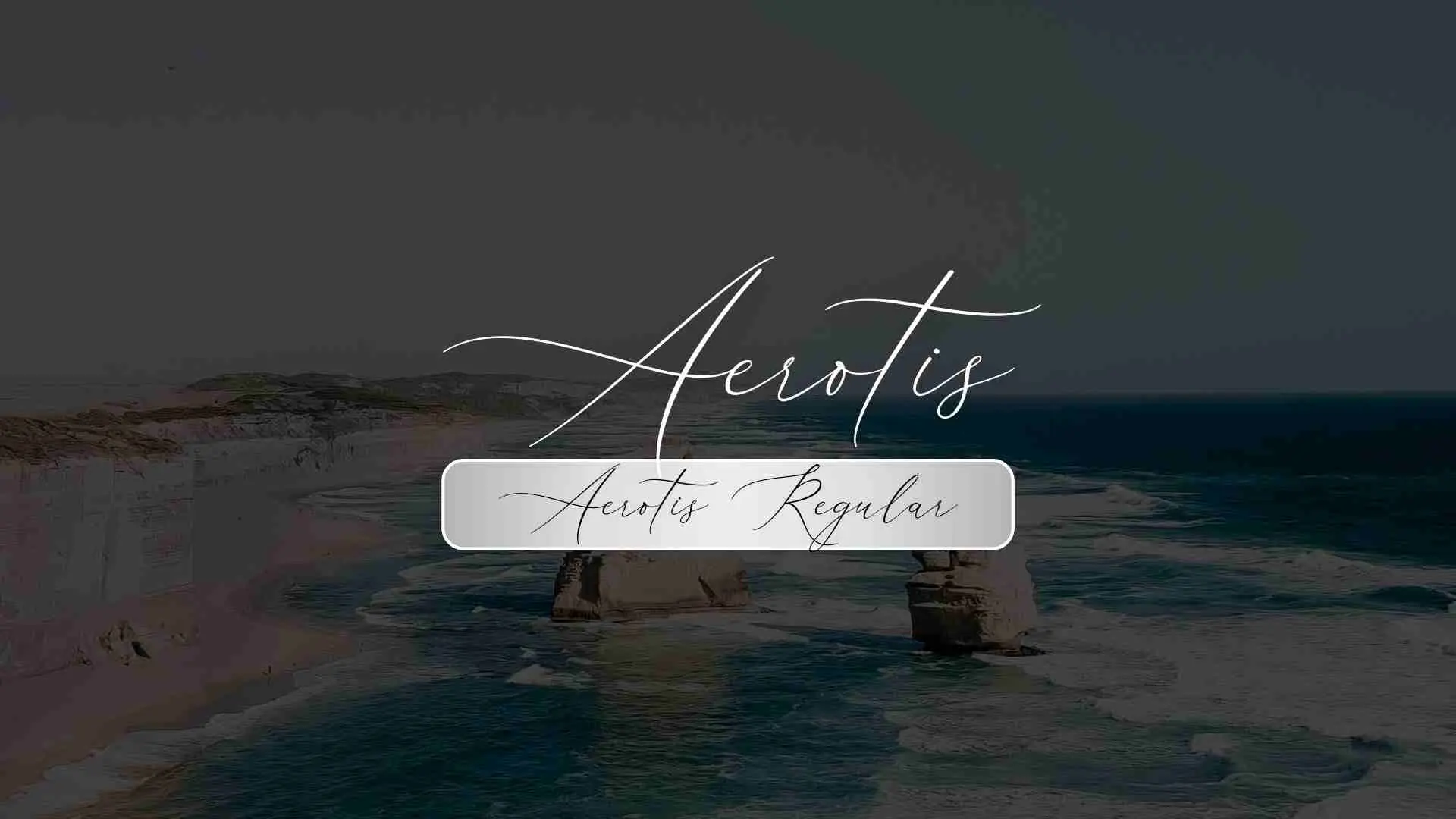
The font Aerotis Regular, designed by Ef Studio, falls under the Script category & Aerotis font family. Its smooth, flowing letterforms make it a versatile choice for projects that require both elegance and readability. Aerotis is particularly well-suited for Branding, Web Design, Print Design, Event Posters, Social media graphics and Logos. With its balance of simplicity and decorative appeal, this font brings a polished touch to both personal and professional designs.